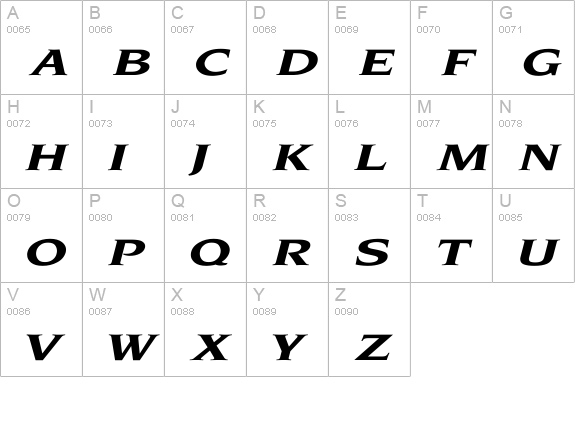
Neuvarese-BoldItalic Ex Font Details
Neuvarese-BoldItalic Ex is a stunning and elegant font that exudes sophistication and class. With its bold and italicized design, this font is perfect for adding a touch of luxury to any project. The graceful curves and sharp angles of Neuvarese-BoldItalic Ex create a sense of modernity and style, making it a versatile choice for a wide range of design applications. What sets Neuvarese-BoldItalic Ex apart is not only its impeccable design but also its accessibility - this exquisite font is available for free download at FontsMarket.com. Now, designers and creatives alike can easily incorporate this premium font into their projects without any added cost. Whether you're working on branding, advertising, or any other design project, Neuvarese-BoldItalic Ex is sure to elevate your work and leave a lasting impression. Unlock the potential of this exceptional font and bring your design visions to life with Neuvarese-BoldItalic Ex.